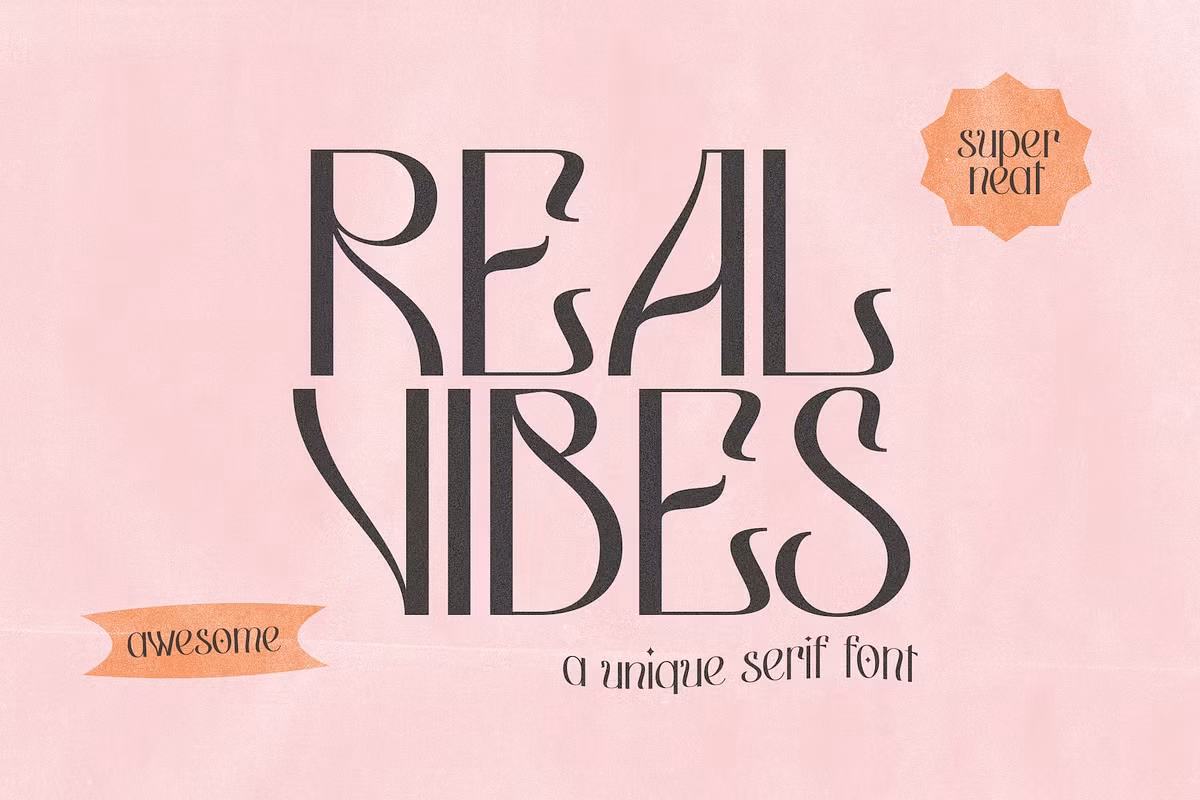
Real Vibes | Display Serif Font Free Download
Real Vibes | Display Serif Font Free Download is a modern and bold serif typeface designed to make a statement. With its clean lines, high contrast, and strong character forms, Real Vibes is perfect for branding, logos, headlines, posters, and any project that requires impactful and stylish typography.
Its sophisticated design combines classic serif elements with a contemporary edge, making it ideal for both modern and vintage-inspired projects. Whether you're creating a brand identity, editorial design, or event promotion, Real Vibes adds elegance and personality to your designs.